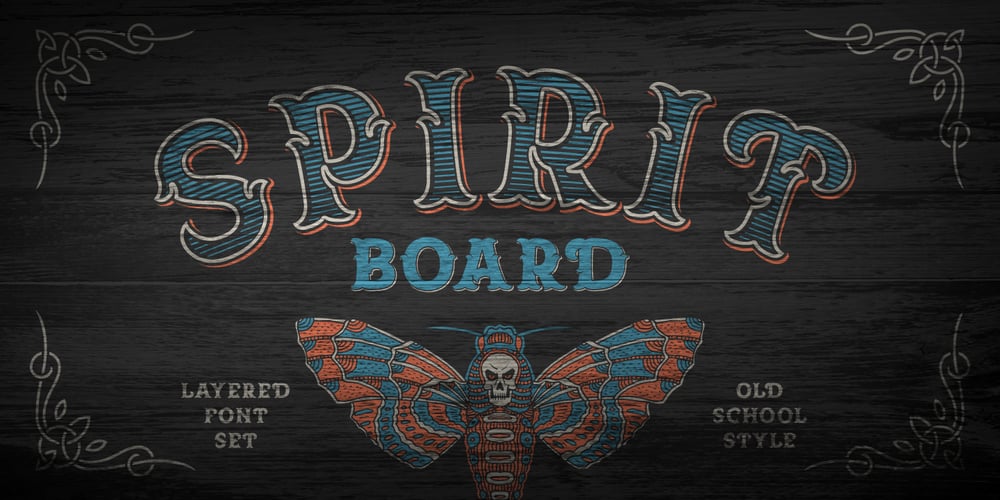
Spirit Board Font Family was designed by Gleb Guralnyk and published by Gleb Guralnyk. Spirit Board contains 5 styles and family package options. Hi, presenting a vintage “Spirit board” font set. It has decorative old-school look with four font layers (one font file for each layer). This combination allows easily to recolor lettering and create an interesting effects. Also one font file is availeble with all shapes in one.Thank you & have a great day!